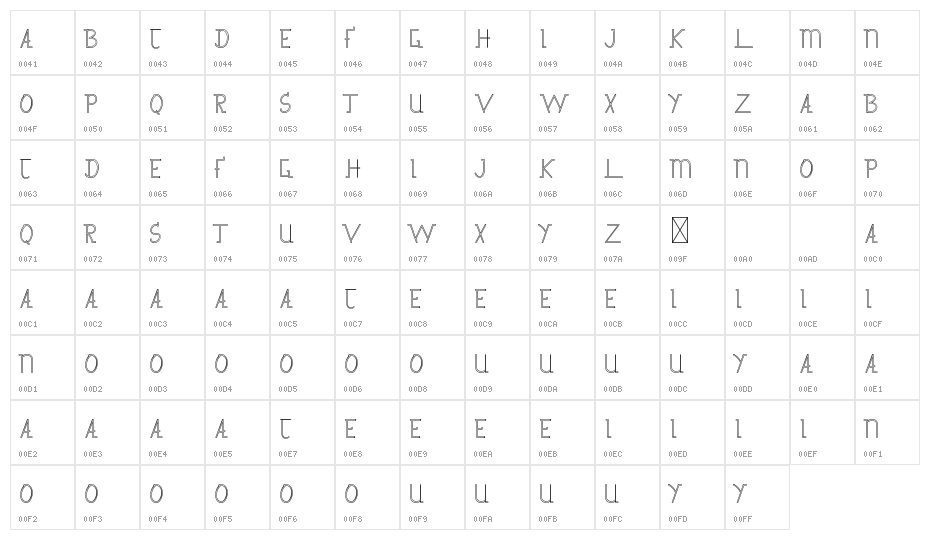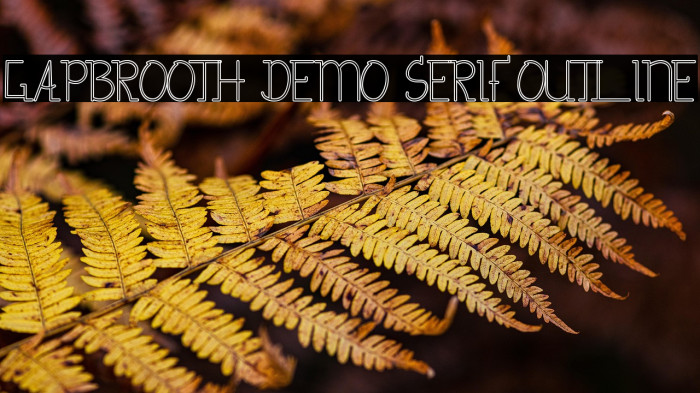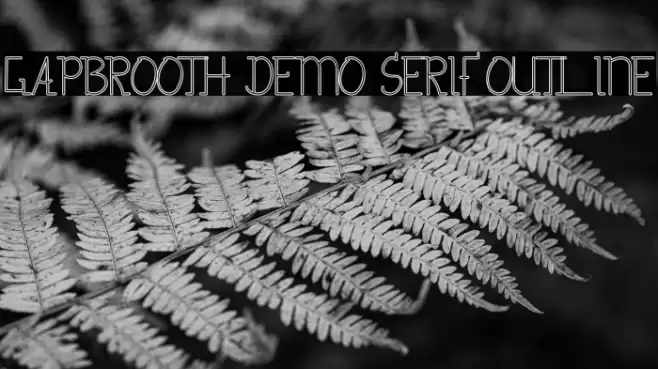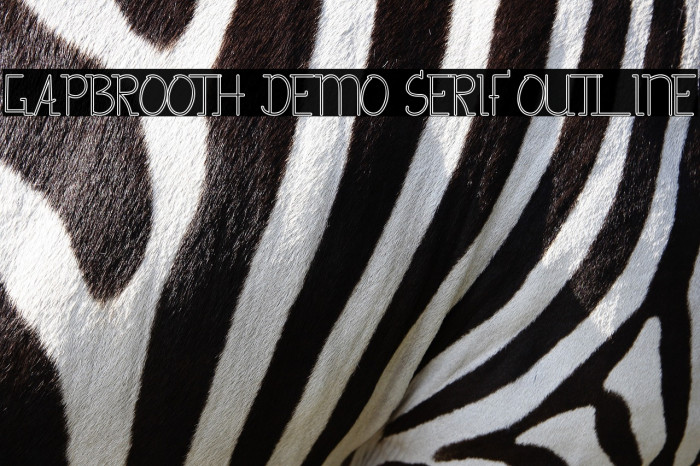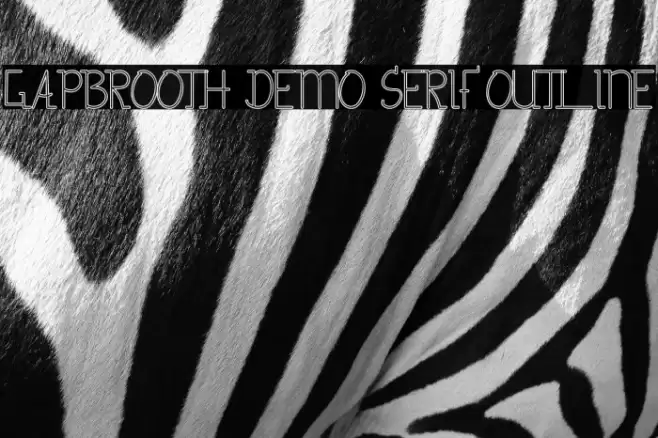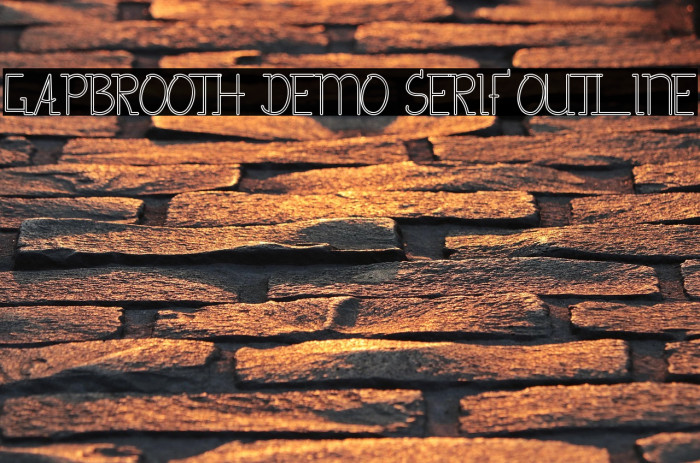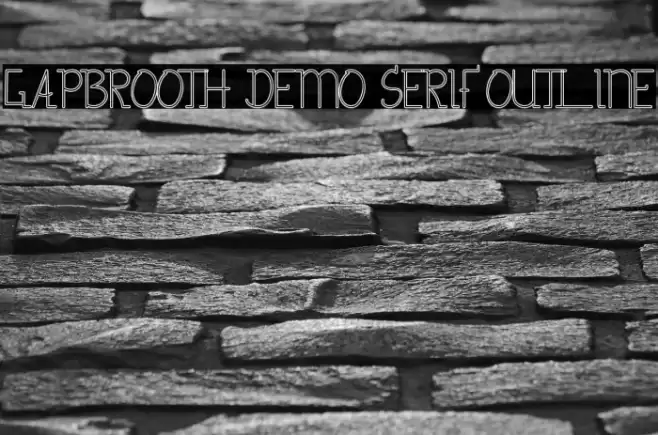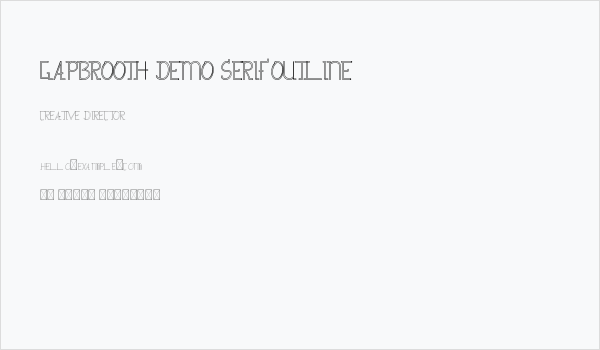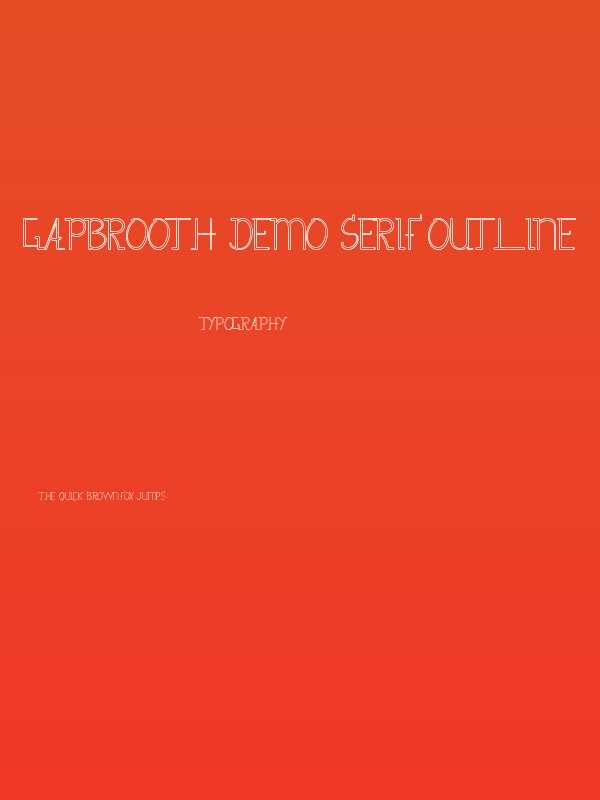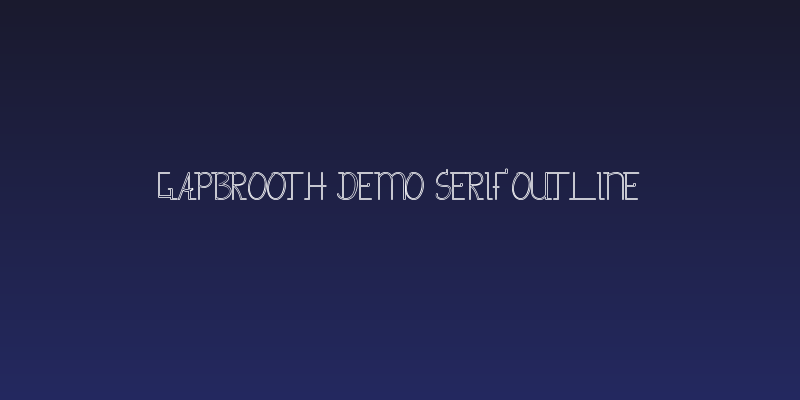
Gapbrooth Demo Serif Outline Font
Gapbrooth Demo Serif Outline Description
This font features a unique outline style with a serif design, characterized by its elegant and elongated letterforms. The uppercase letters are distinct with a modern twist, incorporating both sharp angles and smooth curves. The font maintains a consistent stroke width throughout, giving it a clean and sophisticated appearance. The spacing between characters is balanced, allowing for readability while maintaining a stylish look. This font is suitable for creating a striking visual impact, making it ideal for headlines and titles. Its outline nature adds a layer of depth and interest, making it stand out in various design contexts.
| Proposed Projects | Ideal for branding, headlines, posters, and editorial design where a modern and stylish serif is desired. |